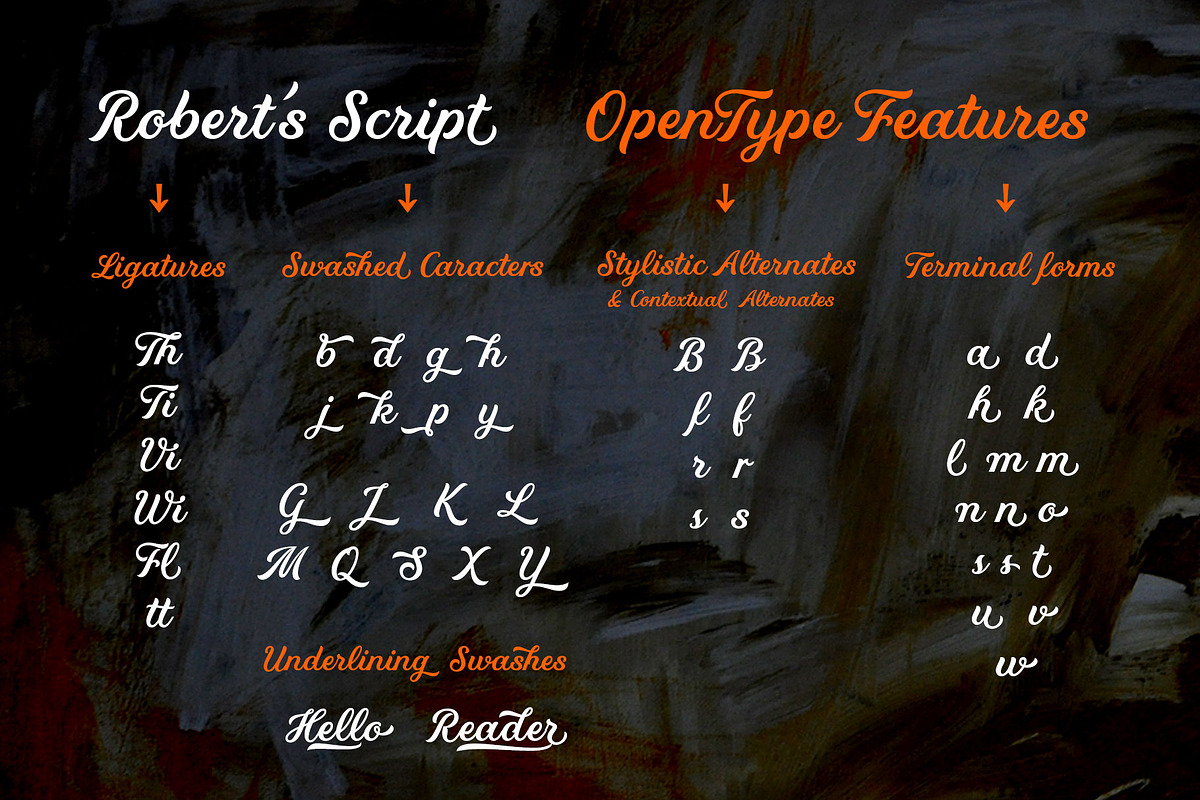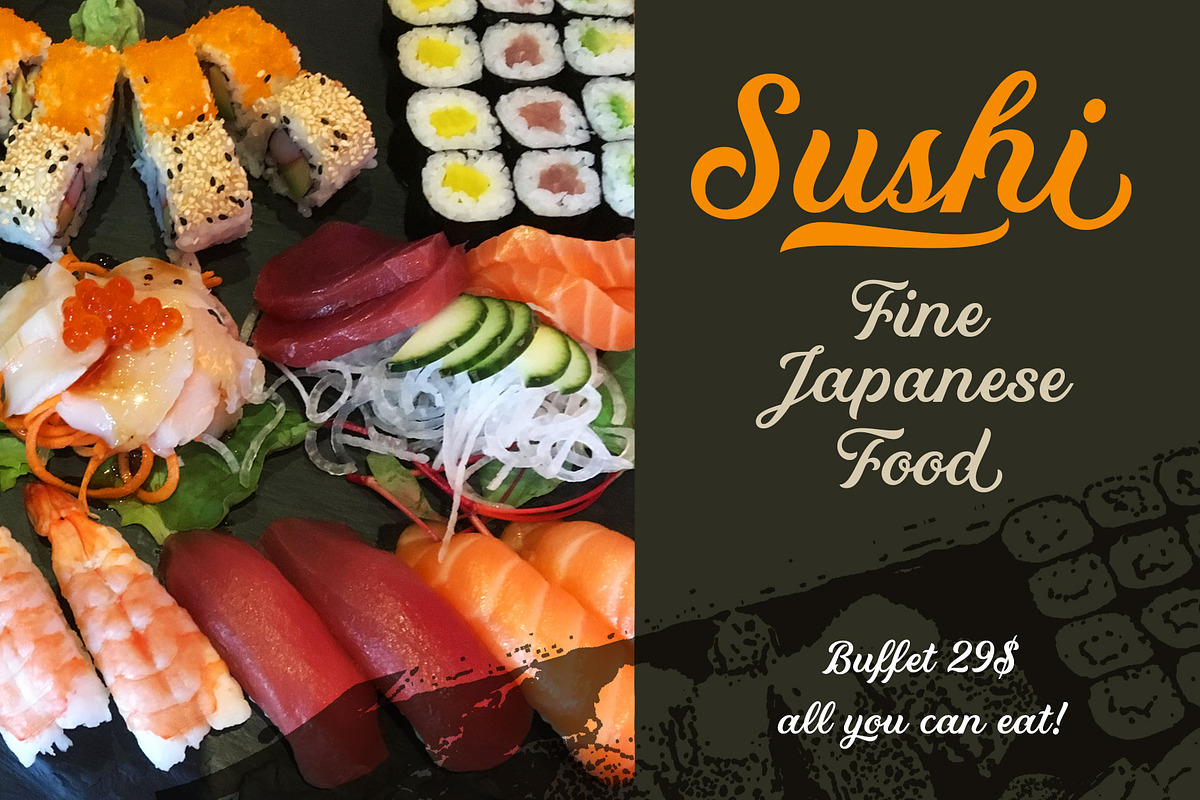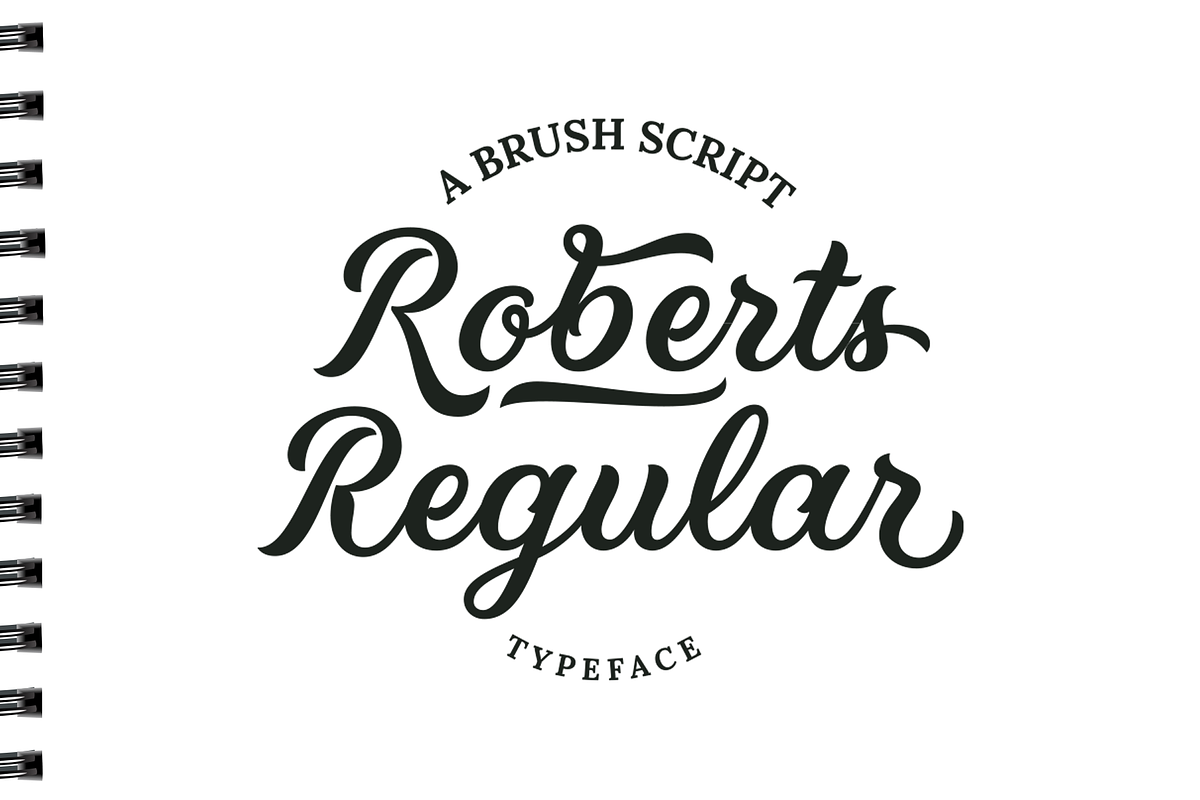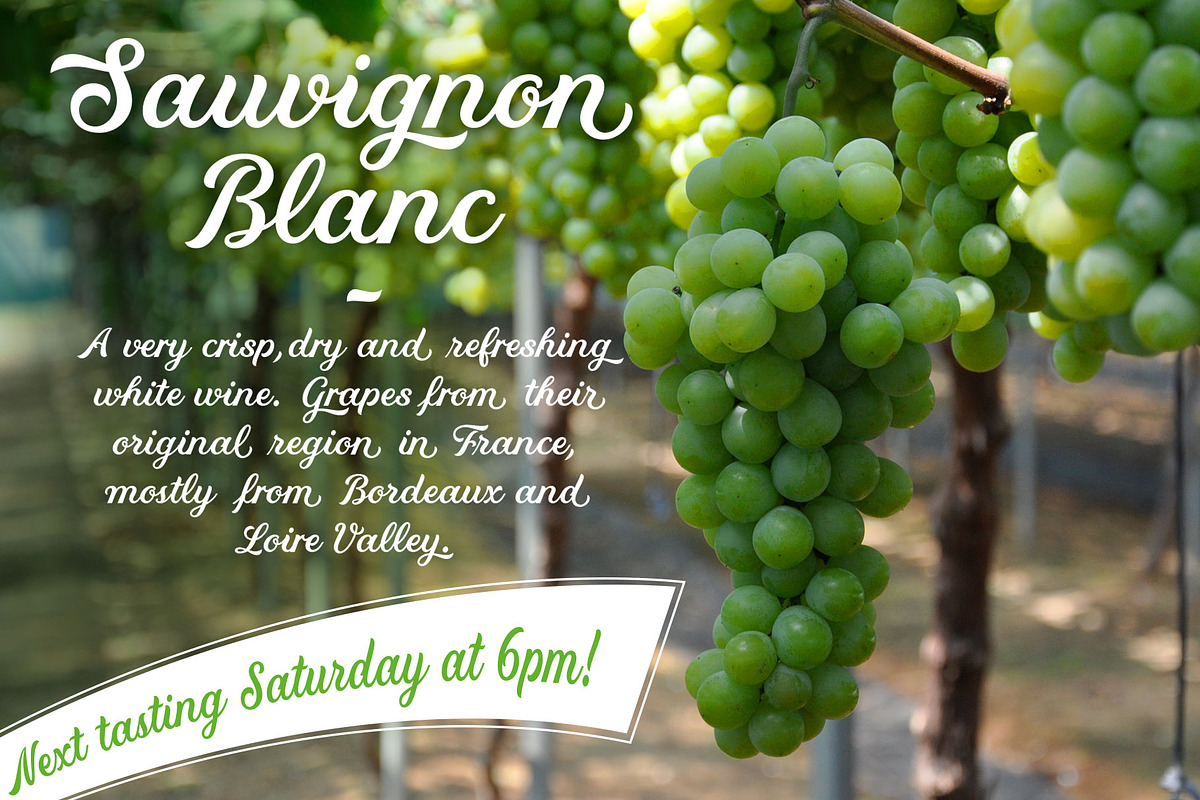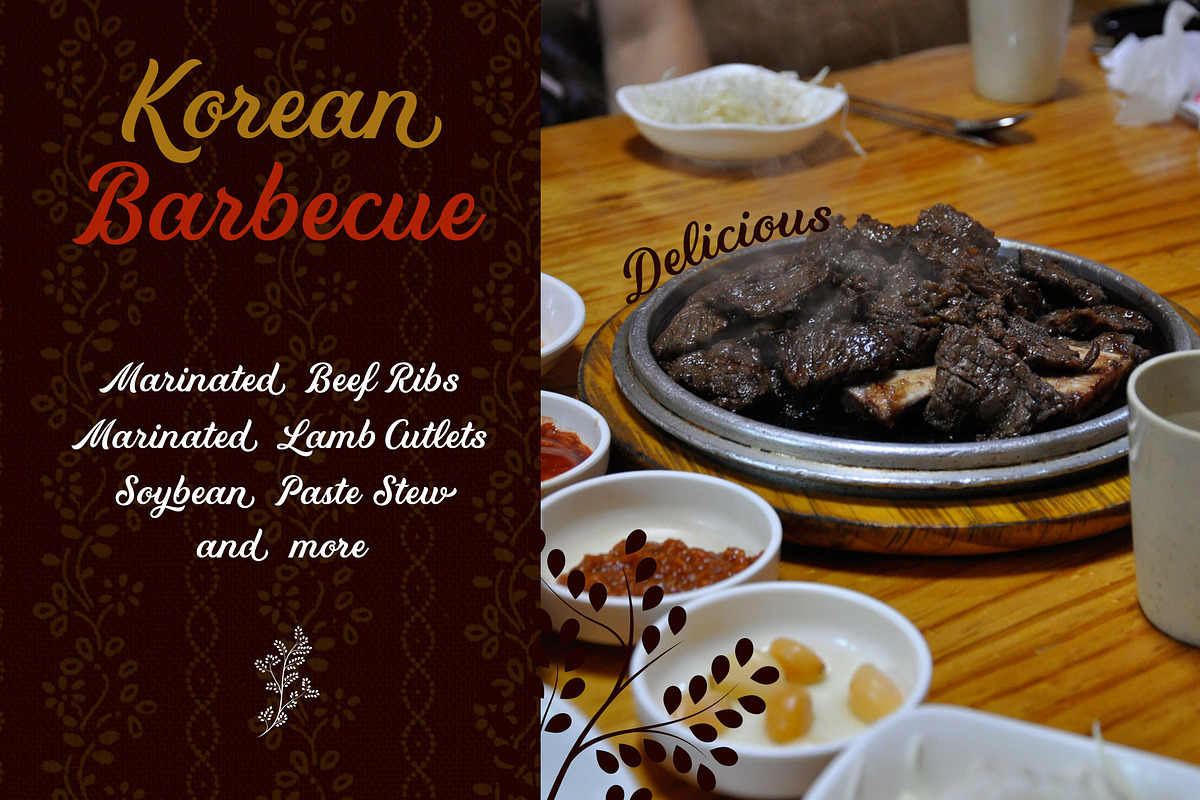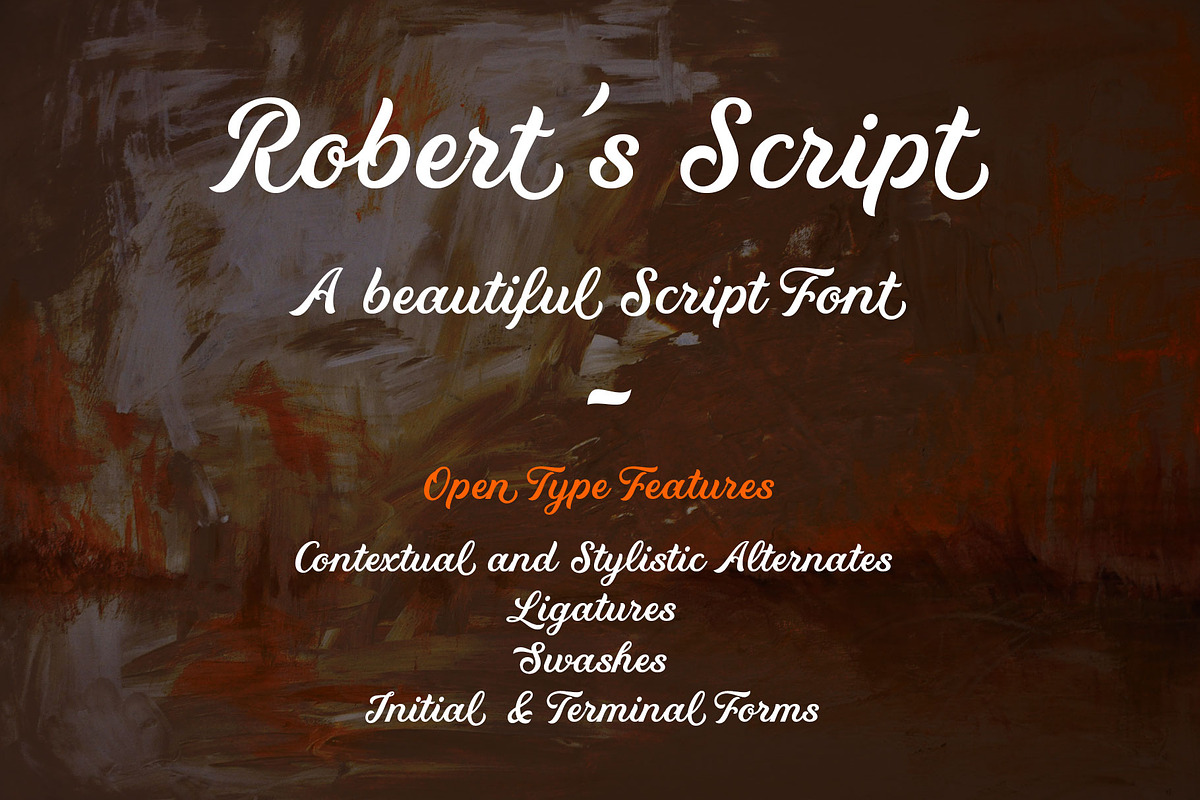
Robert's Script Regular
Roberts Script is a fresh brush calligraphy Font with a smooth flow. Its stylistic character is based on an elegant brush style. It can be used in various forms of visual communications. This is the Regular instance of the Family, you can also find the Light version in my shop now. If you wish to purchase both weights as a Family please contact me for a bulk deal.
There are various OpenType Features such as stylistic alternates, contextual alternates,swashed characters and more. Please find detailed pdf guide at https://drive.google.com/file/d/1exEp9VcLM1rmrF9ptO2OWlQKKA-uyb4r/view?usp=sharing
Roberts Script is a collaboration between lettering artist Robert Bree https://robertbree.de and typeface designer, Roland Hüse https://rolandhuse.com